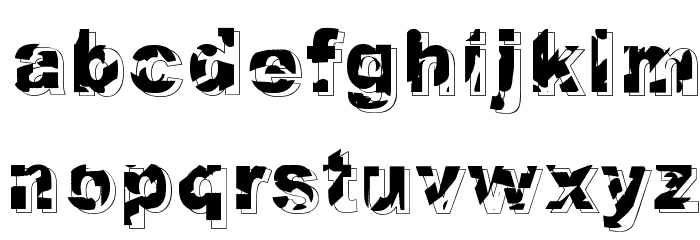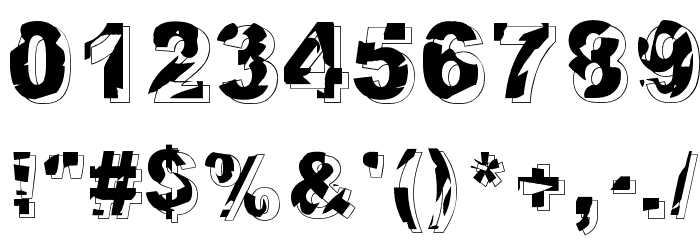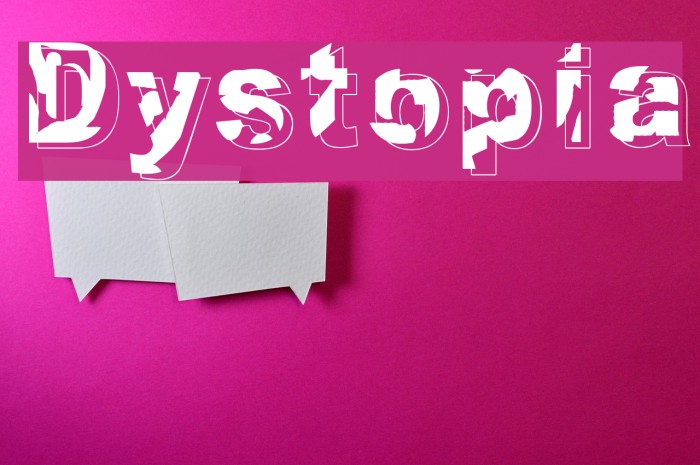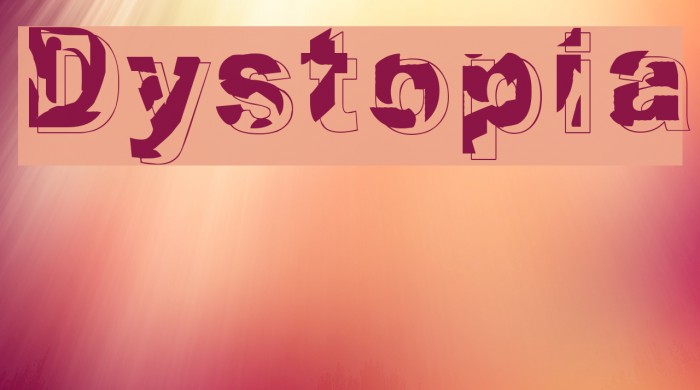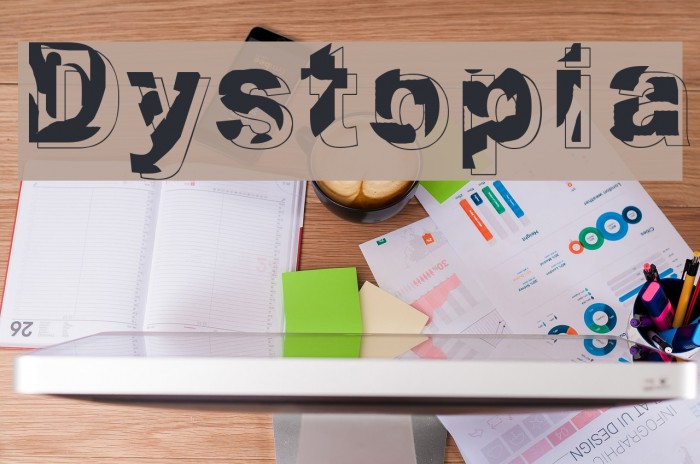
Dystopia Font
This font features a bold and striking design with a distressed, grunge-like texture. The characters are uppercase and lowercase letters, numbers, and a variety of special symbols. Each character is filled with a pattern that gives it a unique, fragmented appearance, adding to its edgy and modern aesthetic. The boldness of the letters makes them stand out, while the irregular patterns within each character create a sense of movement and dynamism. This font is perfect for projects that require a strong visual impact and a contemporary feel.
A bold, distressed font with a modern, grunge aesthetic.
- Proposed Projects: Ideal for album covers, posters, urban-themed designs, and branding that requires a bold statement.